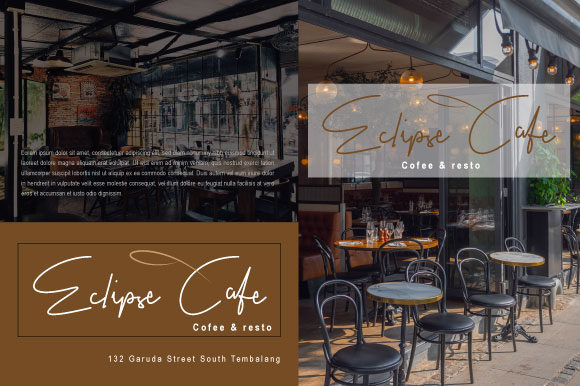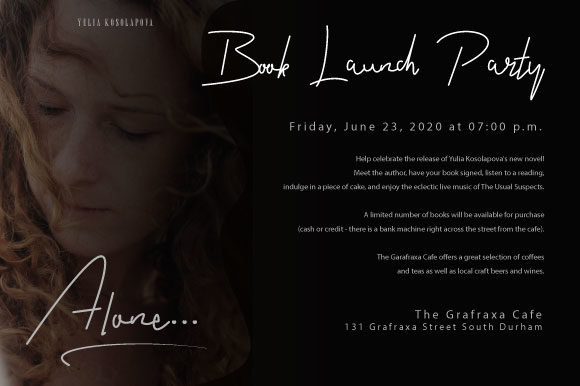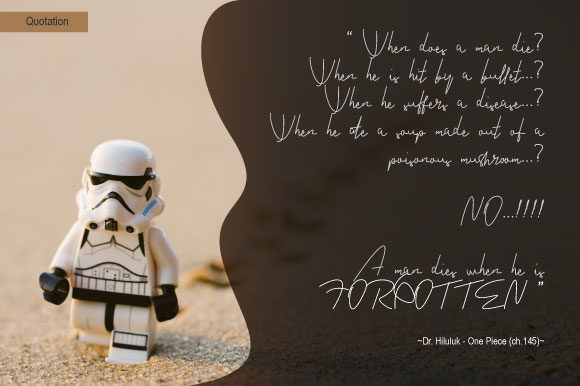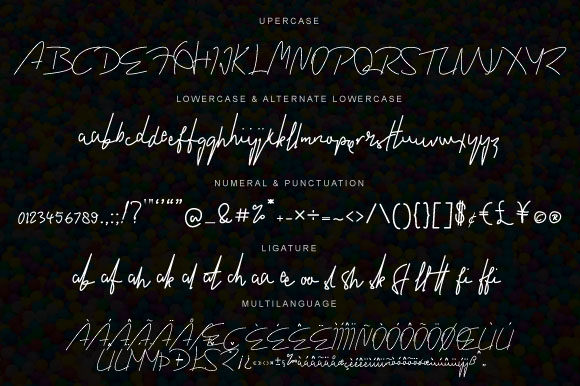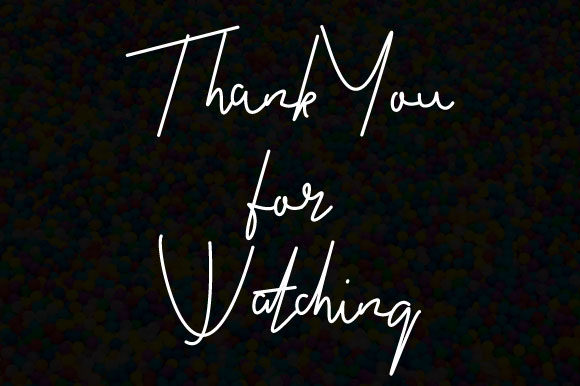
Childish Signature Font
About Childish Signature Font
Childish Signature is a handwritten monoline font in the style of a signature – simple, yet still elegant.
It can be used for various purposes such as book titles, quotations, wedding invitations, graphic designs, print designs, web designs, branding, and much more.